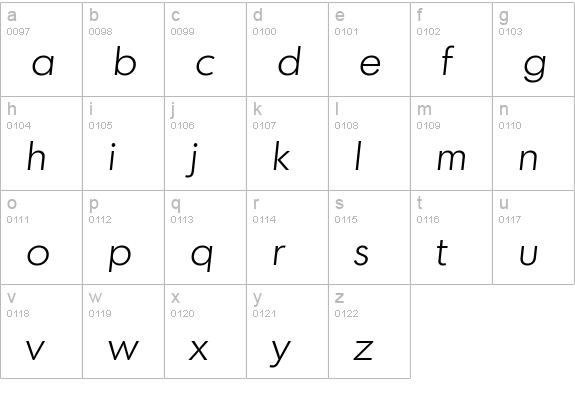
MontrealSerial-Light-Italic is a refined, elegant, italic variant in the MontrealSerial typeface family \xE2\x80\x94 well suited to elegant body text, refined sub-headings, and luxury branding.
MontrealSerial-Light-Italic is a modern and elegant font that exudes sophistication and style. Its sleek design with a touch of italicization adds a unique flair to any project, making it perfect for conveying a sense of sophistication and professionalism. The light weight of the font gives it a delicate and airy quality, making it ideal for use in headings, titles, and body text alike. This versatile font is perfect for a wide range of design projects, from branding and advertising to editorial and web design. It provides a contemporary and refined look that is sure to elevate any design it is used in. Best of all, MontrealSerial-Light-Italic is available for free download at FontsMarket.com. Whether you are a designer looking to add a touch of elegance to your work or simply someone who appreciates high-quality typography, this font is a must-have addition to your collection. Download MontrealSerial-Light-Italic today and bring a touch of sophistication to your projects!